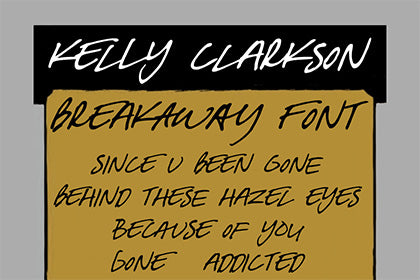
Free Breakaway Font
Download and enjoy this free breakaway font. Cool typeface to showcase your designs in a modern way. This is a downloadable typeface file brought to you by Font Space. Easily amaze your audience with this beautiful font and make your graphic designs pop up from the crowd.